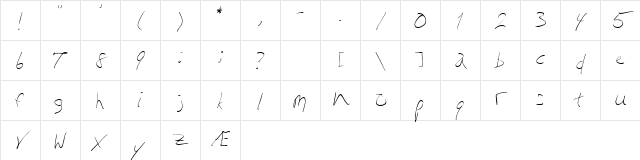
[style] scripty Regular
Design Context for [style] scripty
[style] scripty flows with the natural rhythm of handwritten lettering, making it ideal for designs that call for warmth and personal expression.
Font Pairing: Combine [style] scripty with a simple geometric sans for maximum contrast - the tension between flowing curves and clean structure is a classic typographic pairing.
Pro Tip: Use [style] scripty for short runs of text - names, titles, or taglines. Extended body copy in script faces tires the eye quickly.